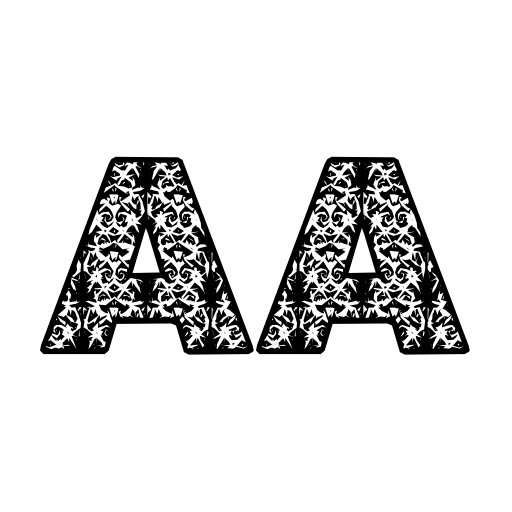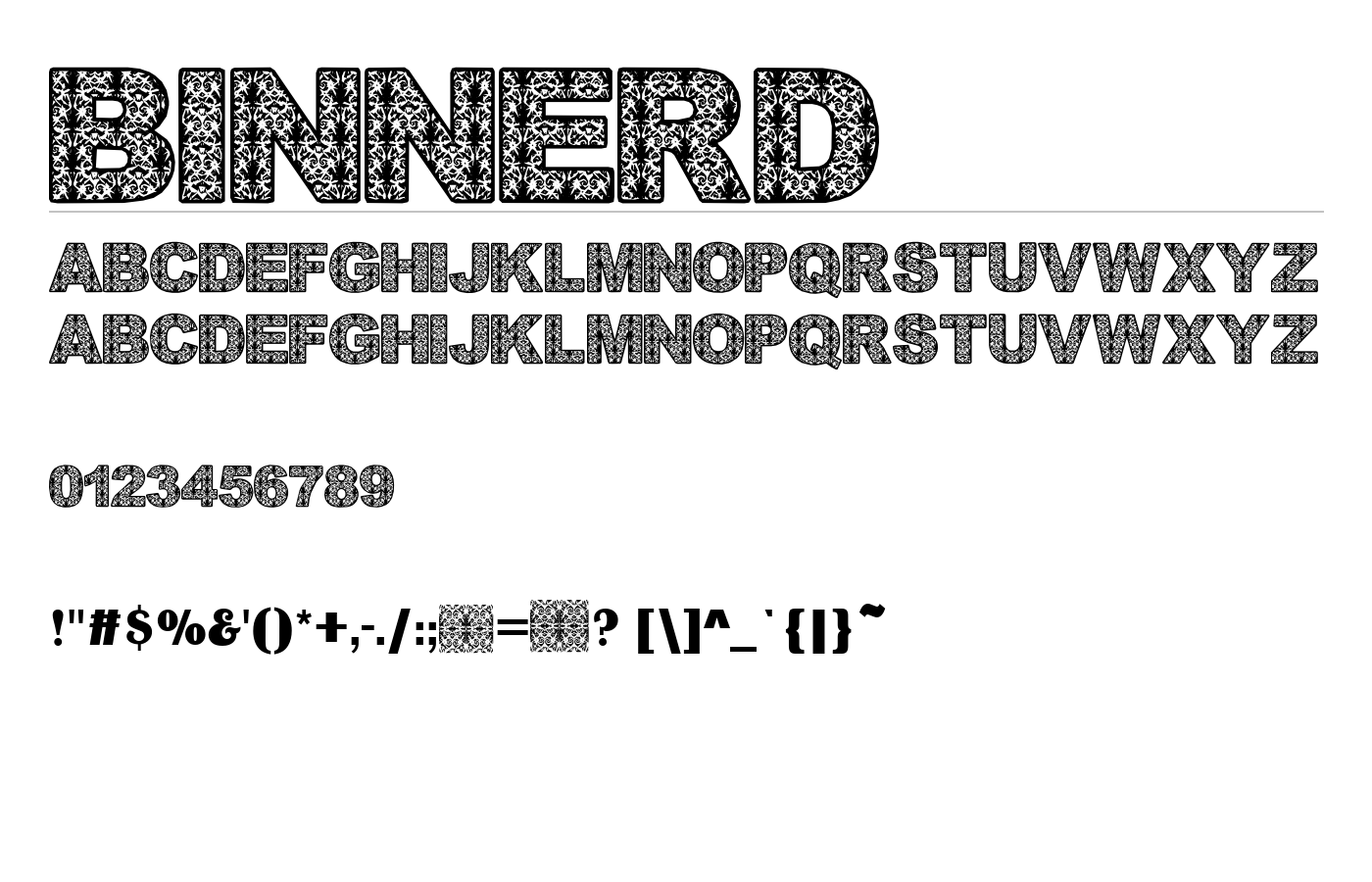
BatikDayakFont is a bold, decorative sans serif typeface featuring a dense, intricate pattern inspired by traditional Dayak batik motifs. Its uppercase-only, heavy letters create a strong visual impact with tightly packed, ornate details, making it perfect for eye-catching headlines, logos, and cultural branding that seek to convey a unique, artistic, and authentic vibe. This font works best in display contexts where its detailed texture can shine and add a distinctive ethnic flair.
BatikDayakFont
About BatikDayakFont